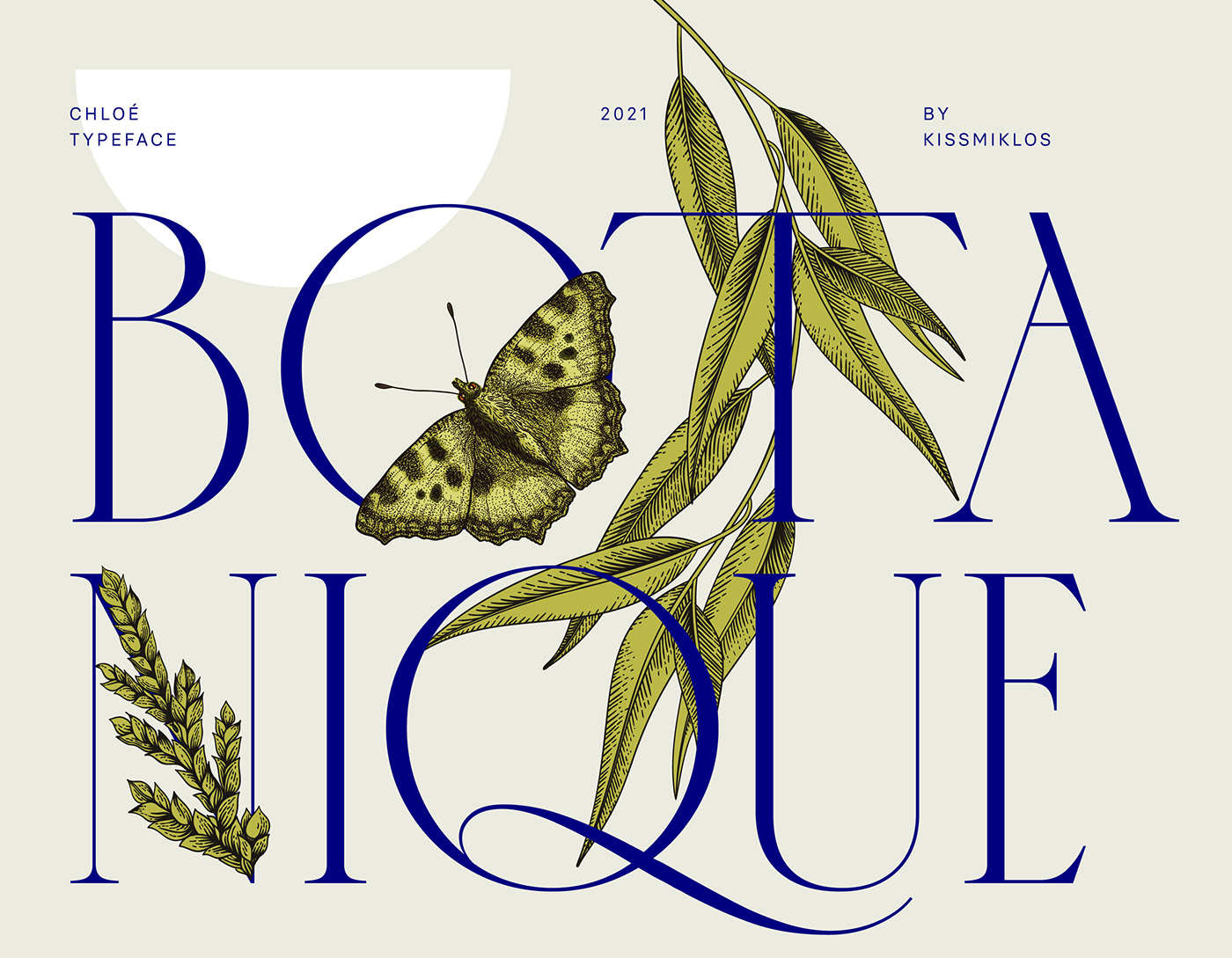
I stumbled across the work of kissmiklos, she is a talented designer and visual artist from Budapest, Hungary. It doesn't seem that we have featured her work before so it was quite intriguing to dive into. For starters, her work on the typeface titled 'Chloé' really caught my eye and how it was presented as well. It's for these reasons I decided to kick-off a series of features starting with this font. Named after her cat, it's a typeface for headlines, titles, logos, custom types, and layout designs. Give it a look and make sure to check out more of her work through her social links.